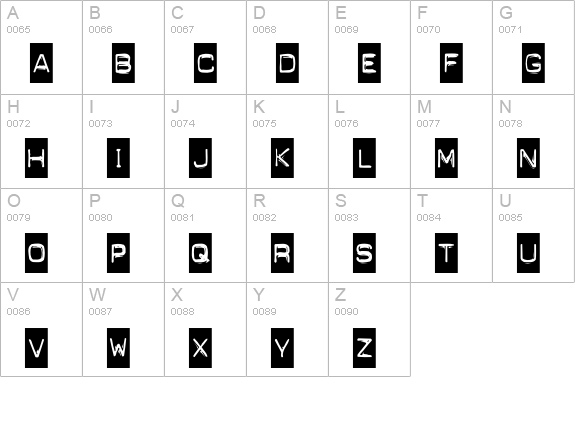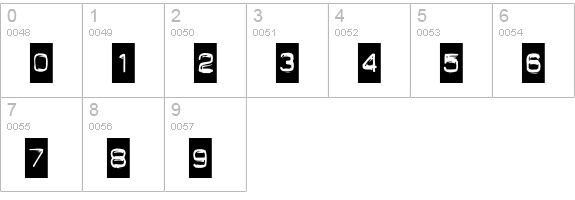
Dynamoe Font Details
Introducing Dynamoe, a sleek and modern font that exudes sophistication and style. With its clean lines and contemporary feel, Dynamoe is perfect for a wide range of design projects, from branding to advertising to web design. What sets Dynamoe apart is not only its striking appearance, but also the fact that it is completely free to download. Yes, you heard that right - Dynamoe is freely available to download at FontsMarket.com, making it accessible to anyone looking to elevate their creative projects without breaking the bank. Whether you're a seasoned designer looking for a fresh new font to add to your collection or a novice just starting out, Dynamoe is a versatile and dynamic choice that will instantly elevate your design work. Don't miss out on this fantastic opportunity to download Dynamoe for free and take your projects to the next level.